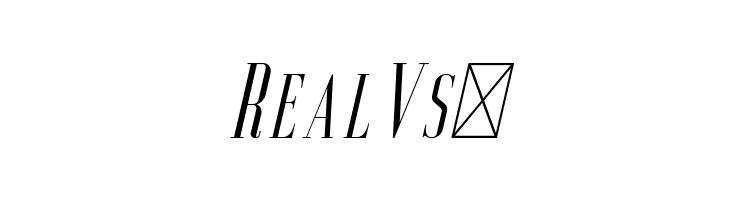
• AgreloyS1
( Fonts by gluk )
An ornate, vintage-style decorative font with intricate details and high contrast.
• Agrem
( Maulana Creative - Gilang Maulana - maulanacreative.net/ )
A tall, narrow font with a bold, modern appearance and tight spacing.
• Agresiva
A bold, rounded font with a strong, playful presence.
• Agresivefont
• Agressiv Regular
( Jaye de Tunis - graffititoonsi.wordpress.com/ )
A bold, geometric font with sharp angles and a blocky, aggressive style.
• Agressive Winter
A bold, rugged font with a distressed, graffiti-like appearance.
• agriculture
A decorative, calligraphic font with flowing, expressive lines and intricate details.
• Agrifan Demo
( EvasUniqueFonts - Eva Barabas - www.etsy.com/ie/shop/DigitalTypefaceS )
A whimsical and decorative font with playful curls and loops, ideal for creative projects.
• Agrish Demo
• AGRON
A modern, condensed sans-serif font with clean lines and uniform strokes.
• Ags
• AGSFontSetSerif
( Hazel Abbiati - diamondidiocy.tumblr.com )
A bold, pixelated serif font with a nostalgic digital aesthetic.
• Agua deJamaica-Italic
An elegant, cursive script font with a handwritten, italicized style.
• Aguafina Script Regular
An elegant and flowing script font with bold, cursive letterforms.
• AguafinaScript-Regular
An elegant script font with fluid, cursive strokes and a sophisticated appearance.
• Aguardiente
• Aguellera
An elegant, flowing script font with a natural, handwritten appearance.
• Aguero Serif Free Italic
( Craft Supply Co. - creativemarket.com/craftsupplyco )